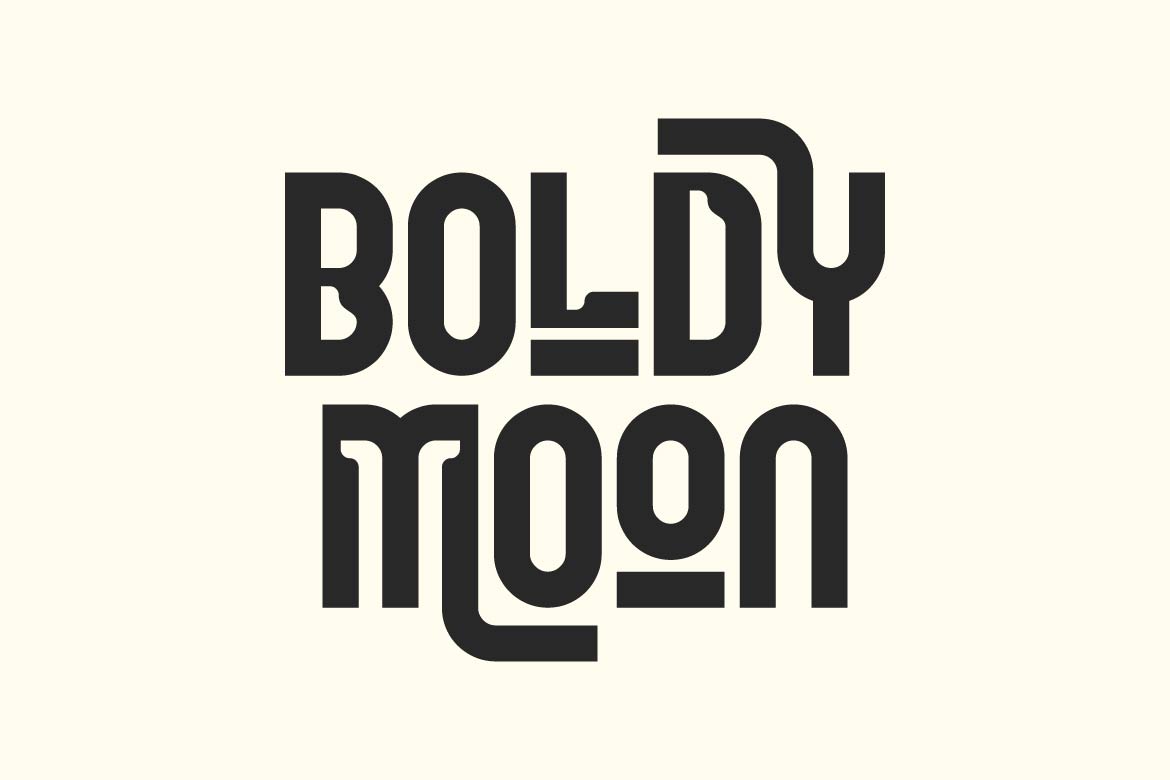
- Boldy Moon – Display Logo Font
Boldy Moon is a creative display logo font designed to make every brand look bold, memorable, and full of personality. Featuring thick letterforms, distinctive curves, and a contemporary display style, Boldy Moon creates eye-catching typography that instantly becomes the center of attention.
Crafted for logo design, branding, packaging, posters, merchandise, social media graphics, and marketing campaigns, Boldy Moon combines playful creativity with professional versatility. Its bold structure delivers excellent visibility while its unique character gives every project a fresh and recognizable identity.
Perfect for creative studios, fashion brands, cafés, food packaging, lifestyle products, startups, and modern businesses, Boldy Moon helps designers create logos and headlines that leave a lasting impression across print and digital media.
Boldy Moon isn’t just a font—it’s a bold creative identity made to help your brand shine.
- Alternates